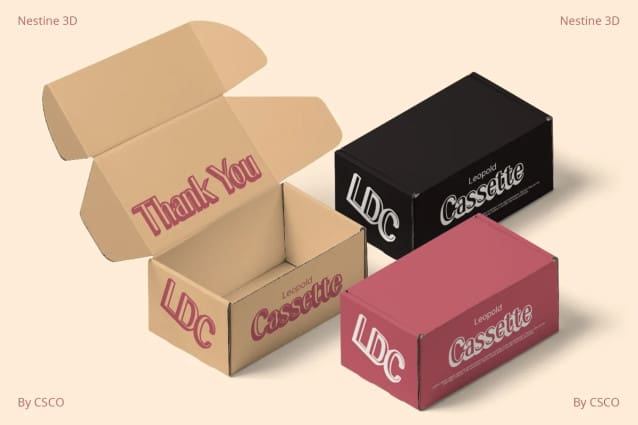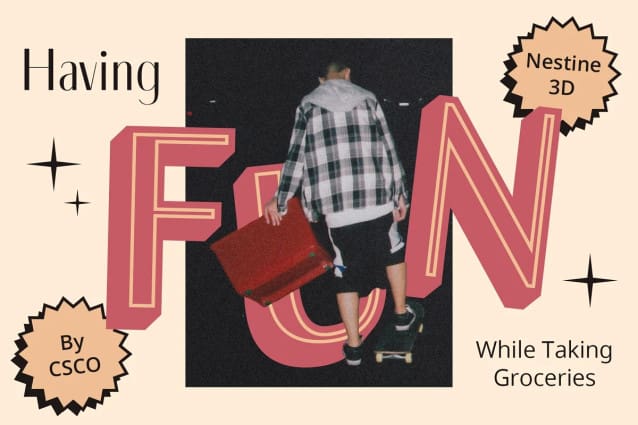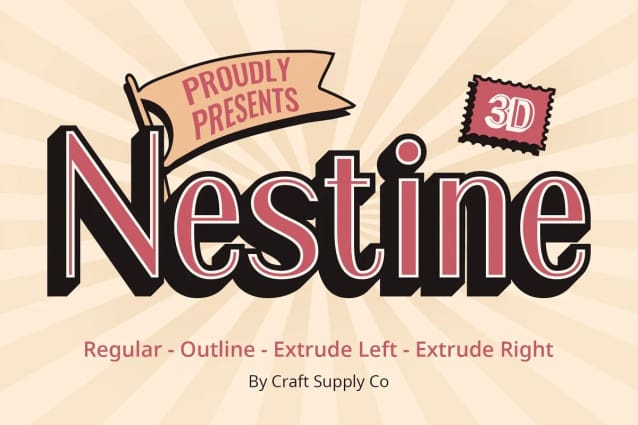
Nestine 3D Font
Nestine 3D Font, a sans serif font, introduces a dynamic extrusion effect that elevates each character, providing a captivating three-dimensional appearance.
Striking Outline With a bold outline that outlines each letter, Nestine 3D ensures legibility and a striking visual impact, making it a compelling choice for various design projects.
Vibrant Depth Experience vibrant depth in your designs as Nestine3D’s extrude effect adds a new dimension, transforming flat typography into a lively and engaging visual element.
Versatile Application Nestine3D’s versatility shines through as it seamlessly adapts to diverse design needs, from attention-grabbing headlines to impactful signage.
Conclusion In conclusion, Nestine 3D emerges as a typographic marvel, seamlessly combining dynamic extrusion and bold outlining to bring a three-dimensional vibrancy to your designs. Elevate your projects with Nestine3D’s captivating and versatile aesthetic.